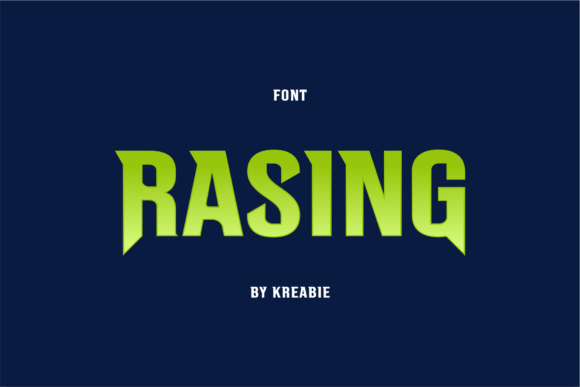
Brace yourself for a typographic voyage unlike any other, where letters leap off the screen with an audacity that commands attention. Introducing Rasing Font, the display font that exudes boldness, modernity, and a touch of rebellion. With its striking presence, Rasing Font is not just a font; it's a statement.
Unleash the power of self-expression with Rasing Font, the ultimate tool for web designs that demand distinction. Its sharp edges and confident strokes bring a touch of sophistication to any digital canvas. Whether you're crafting business cards that leave a lasting impression or creating eye-catching logos that demand attention, Rasing Font is your trusty companion.
But Rasing Font's versatility extends far beyond the digital realm. Its undeniable charm shines in the physical world too. Designers, rejoice! This font is the perfect match for posters, flyers, and brochures that yearn for a touch of individuality. Its unique character adds a layer of intrigue that captivates audiences, leaving them wanting more.
So, dive into the world of Rasing Font and let your creativity soar. Its endless possibilities await your exploration, ready to transform your designs into masterpieces that resonate with your audience. Don't settle for ordinary fonts; embrace the extraordinary with Rasing Font.